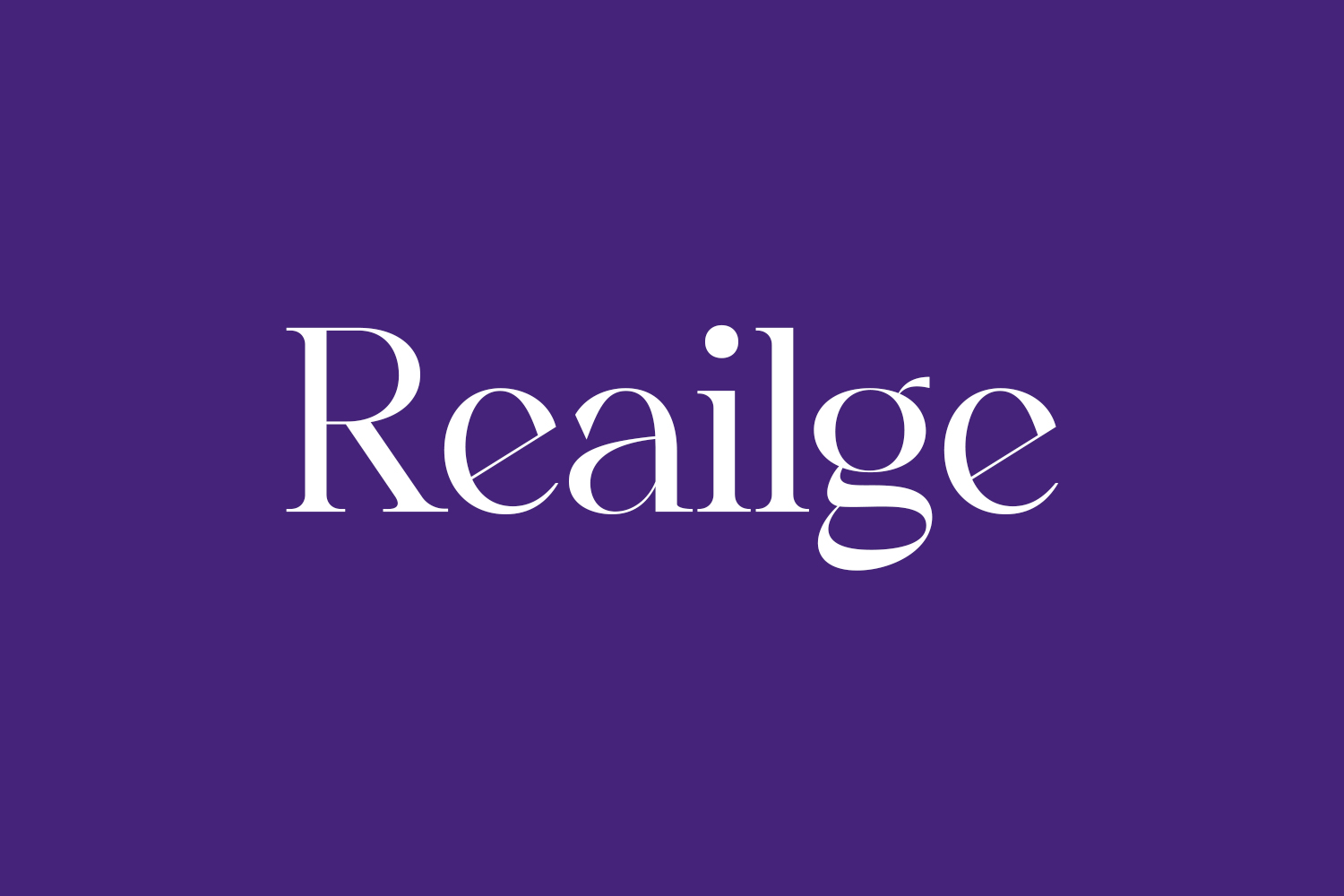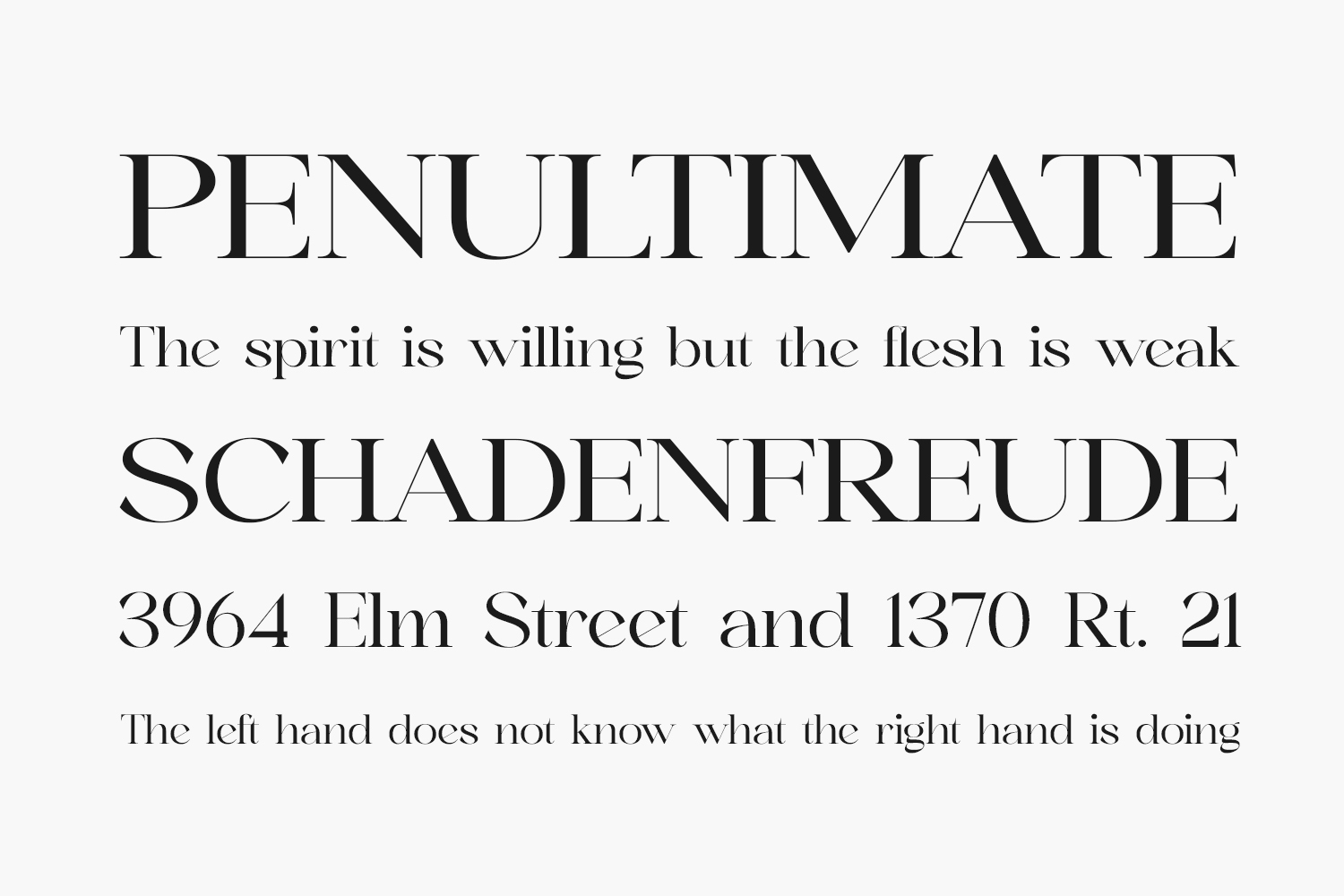
Introducing Reailge Free Font, an exceptional blend of modern and timeless serif font, characterized by its contemporary flair and distinct aesthetic appeal. Reailge Free Font is free for personal use only. Please purchase the full version for commercial use.